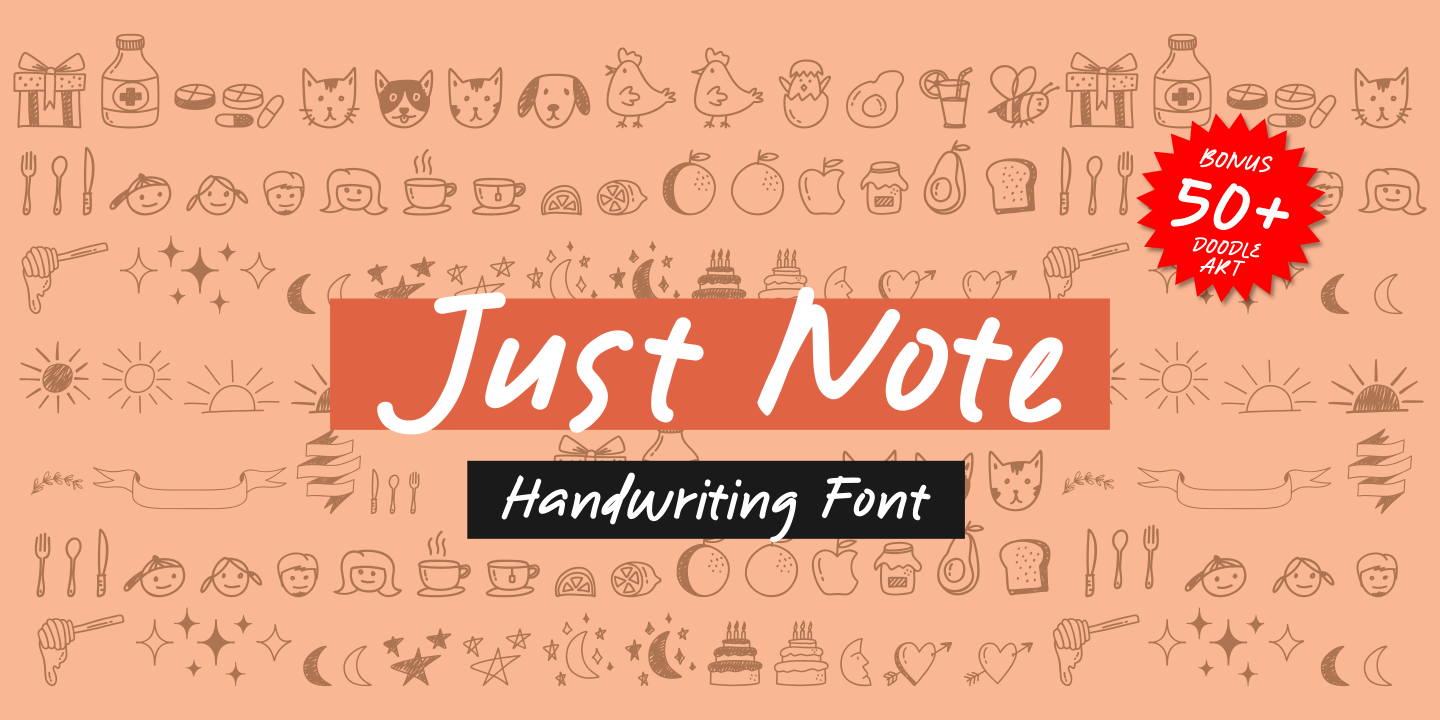
Just Note Font Free Download is a delightful and charming handwritten typeface that brings a personal, casual touch to your designs. Please note that you are required to purchase this font for commercial use. It is available for free download strictly for testing and personal purposes.
You can use Just Note Font in a variety of creative projects, such as digital planners, stationery, greeting cards, blog headers, inspirational quotes, and lifestyle branding. It's also perfect for Instagram story highlights, journaling apps, and YouTube thumbnails that need a personal, authentic feel.
What makes this font truly exciting is its handwritten charm that feels both spontaneous and stylish. Just Note captures the essence of a quick scribble with grace and readability, making it ideal for projects that need a warm, human connection. It’s not too formal, not too messy — it’s just right.
The Just Note Font family includes styles like Just Note Regular, Just Note Bold, Just Note Italic, and Just Note Outline, giving you enough room to play with weight and emphasis without losing its natural flow.
Whether you're designing a bullet journal template or crafting a heartfelt wedding invitation, Just Note Font Free Download adds a personal flair that's hard to resist. It's the kind of font that whispers rather than shouts — perfect for when you want your message to feel real and relatable. Try it out today and see how it transforms your creative space!